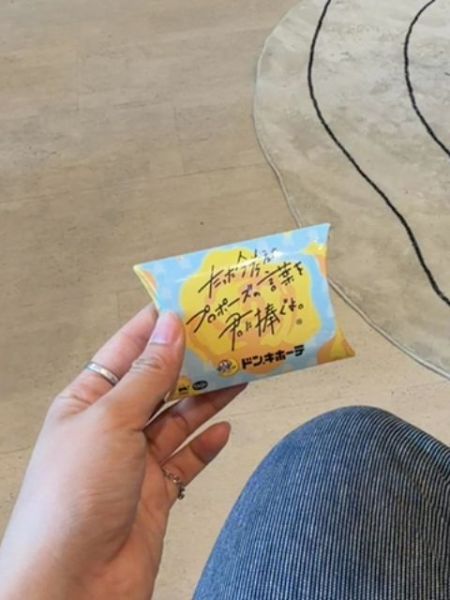
The product is likely a snack or confectionery item meant for personal consumption.
Typography
The typography on the packaging uses a handwritten script style that conveys a casual and approachable feel. It contrasts with the structured use of sans-serif fonts, creating a dynamic and modern appearance.
Packaging
The packaging is small and compact, designed to fit comfortably in one hand. It features a colorful design with bold, vibrant yellow and blue hues that catch the eye.
Facts
- The design incorporates a playful and modern aesthetic.